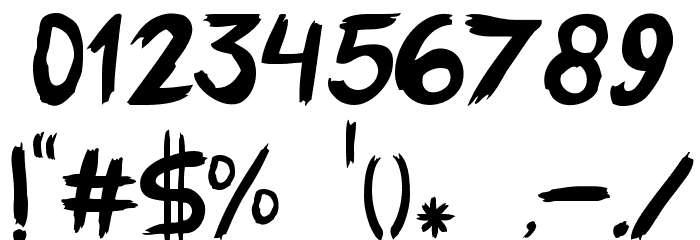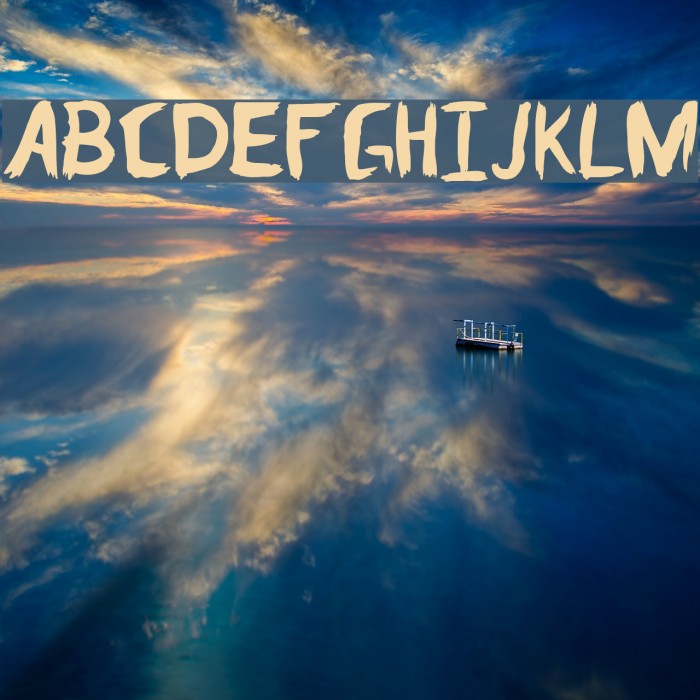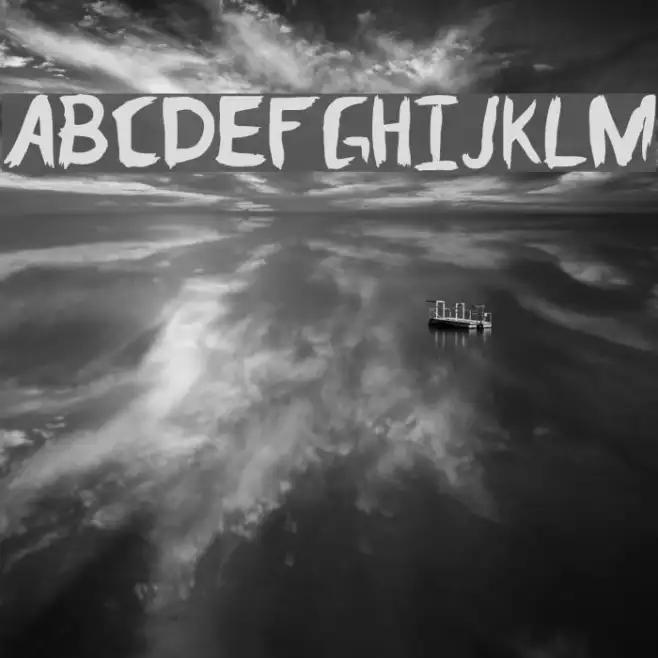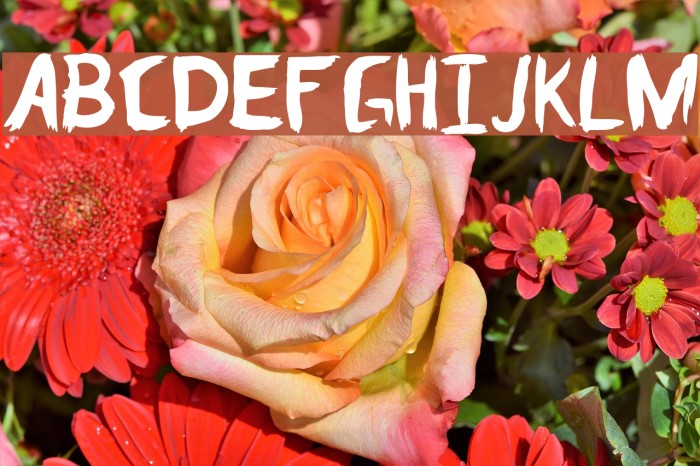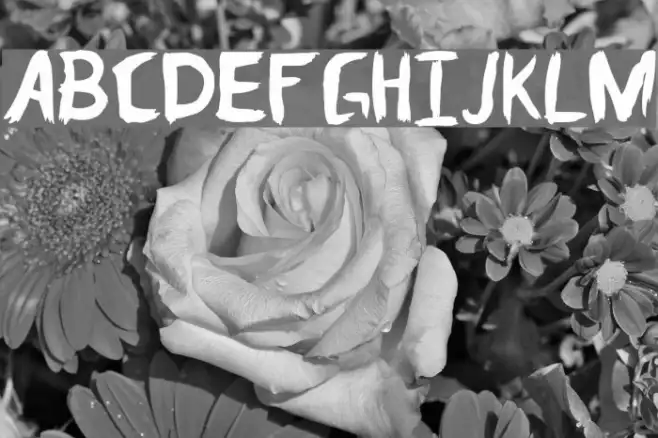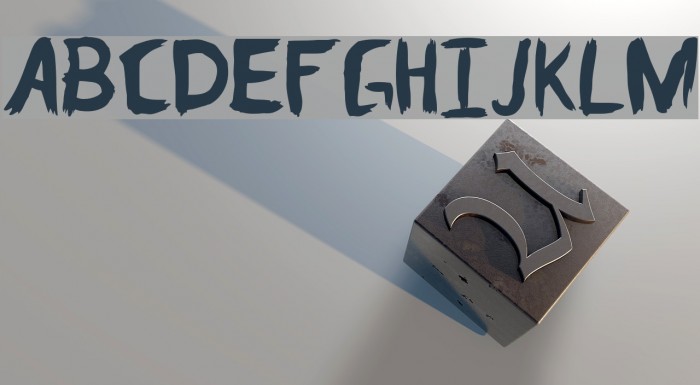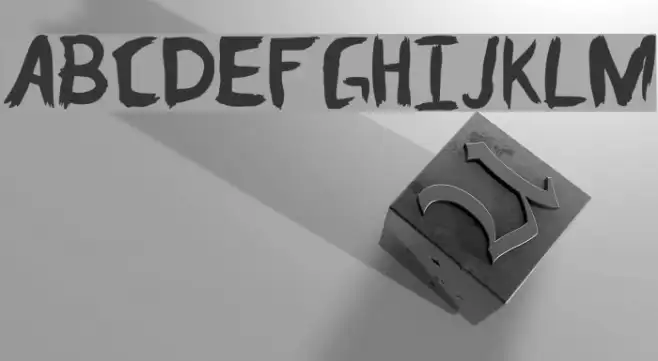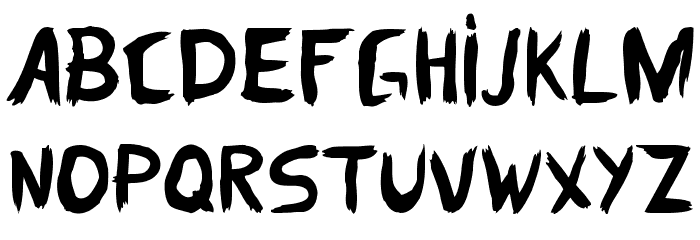
Dom Parquim Font
Dom Parquim Description
This font features a bold and dynamic brushstroke style, characterized by its energetic and expressive appearance. The letters have a hand-painted quality, with varying thicknesses and slightly irregular edges that give it a raw and artistic feel. The uppercase and lowercase letters maintain a consistent style, providing a cohesive look across the alphabet. Numbers and special characters are equally bold, ensuring they stand out in any design. The overall impression is one of movement and creativity, making it suitable for projects that require a strong visual impact.
| Overall Style | Modern, Artistic |
| Proposed Projects | Ideal for posters, album covers, branding projects, and any design requiring a bold artistic touch. |